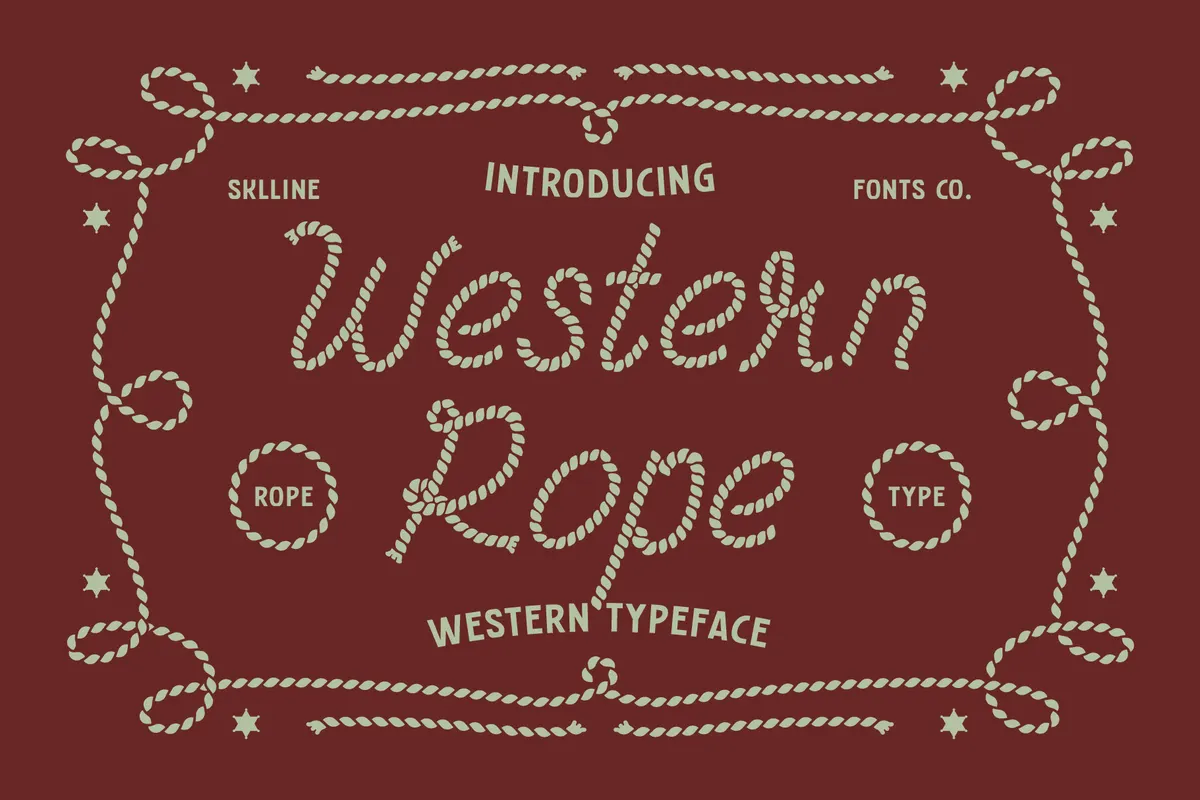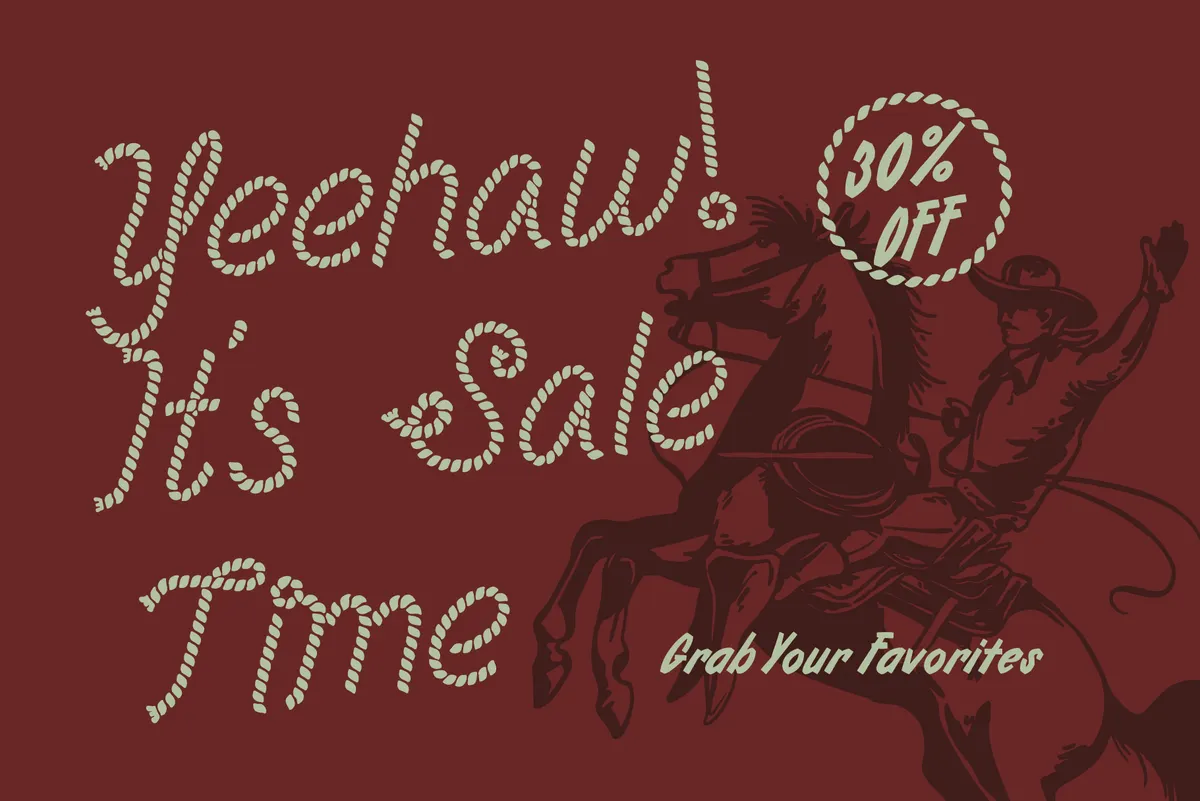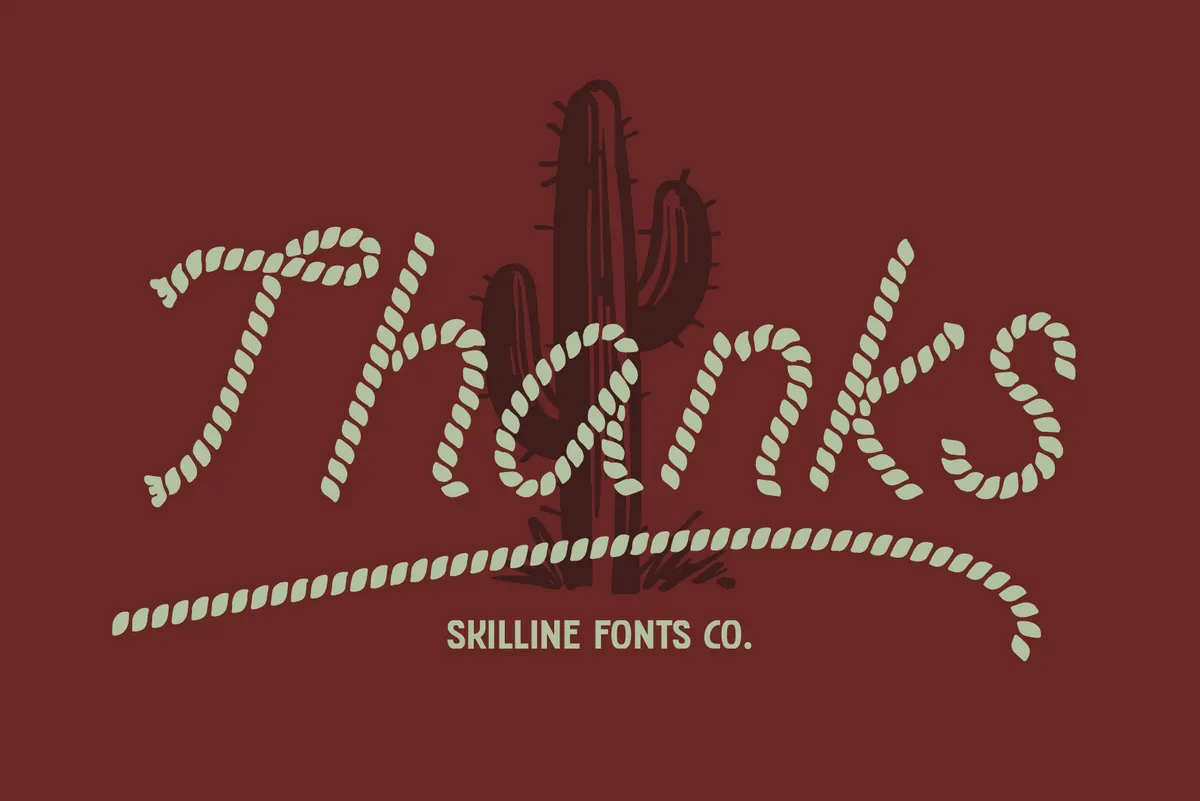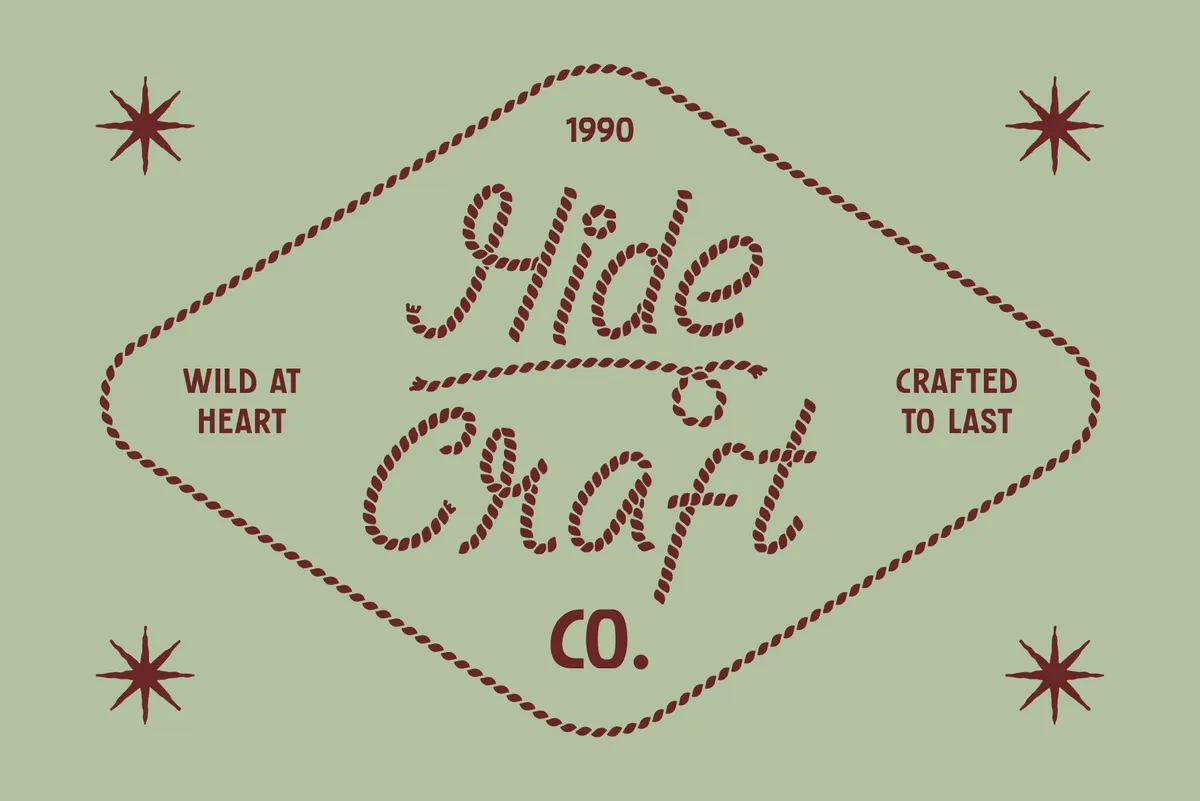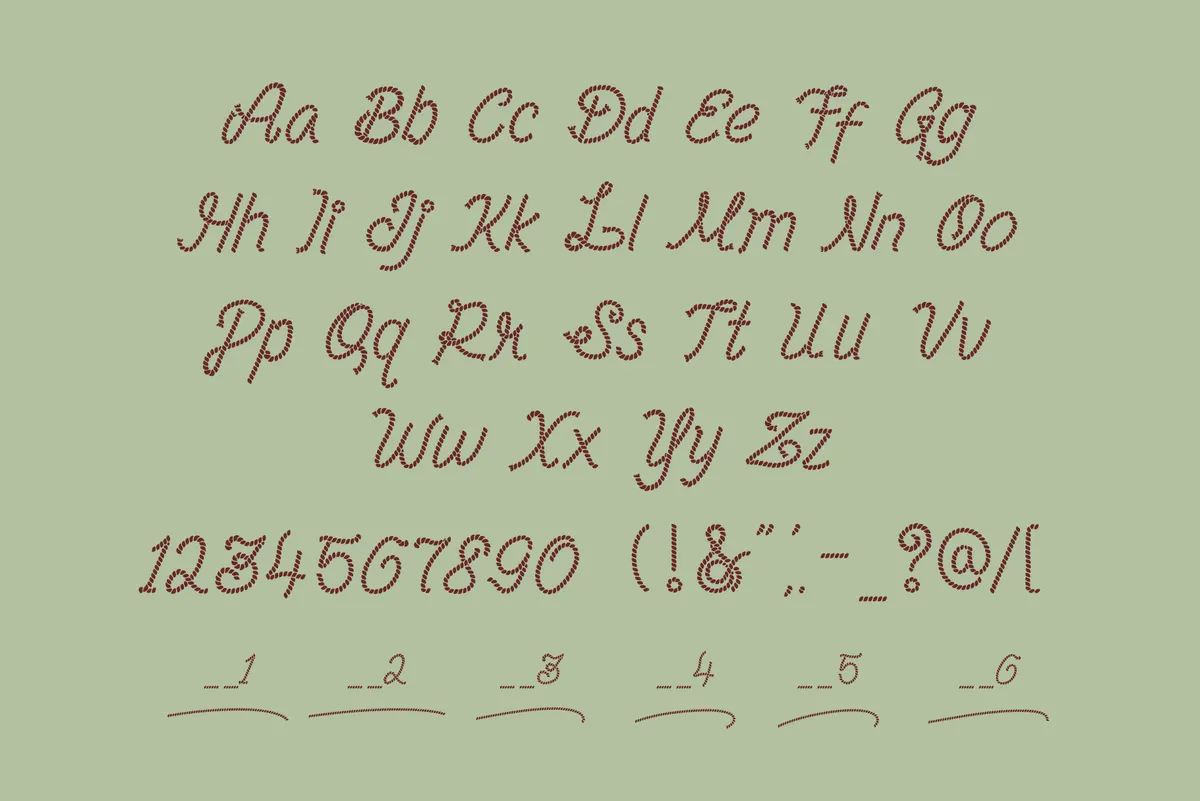
Western Rope - Western Script Font
SFC Western Rope
Western Rope builds every letter from tightly braided rope strands, twisting and looping the way an actual lasso coils on a saddle horn. The script connects in a continuous, flowing line, with rounded loops standing in for sharp corners across the whole alphabet.
A hidden ligature turns a double underscore plus a digit into a decorative underlined numeral, handy for badge-style dates and ranch-style numbering. Use it for western branding, rodeo and ranch logos, rustic packaging, apparel graphics, and vintage-inspired signage.